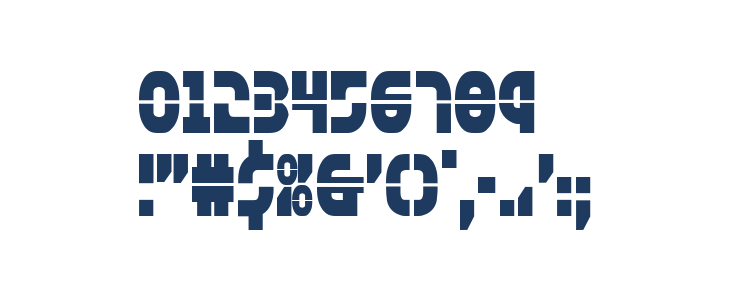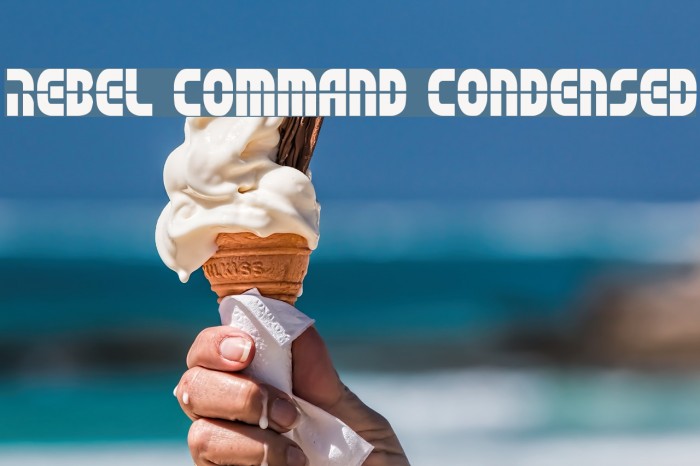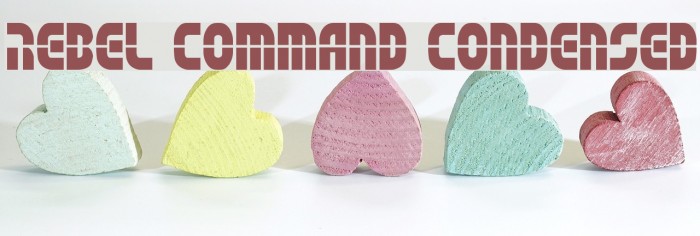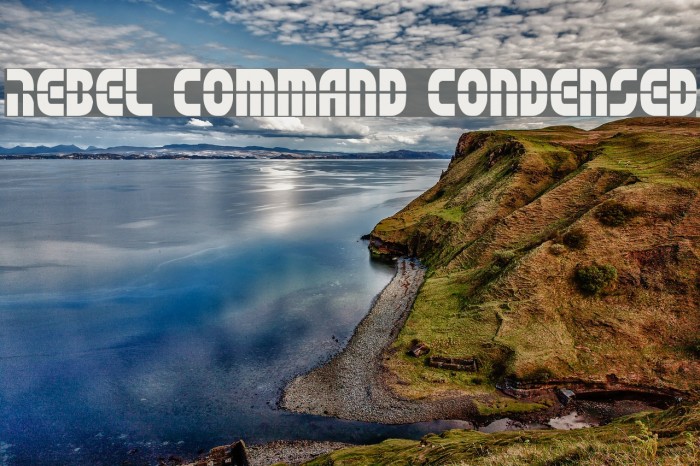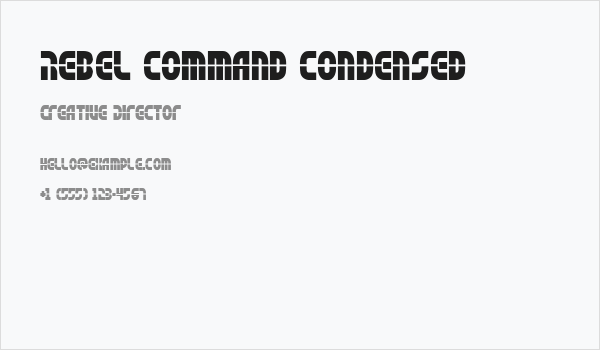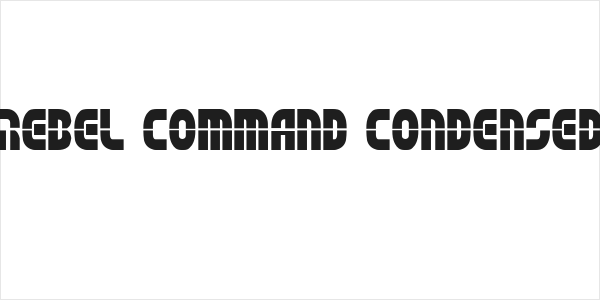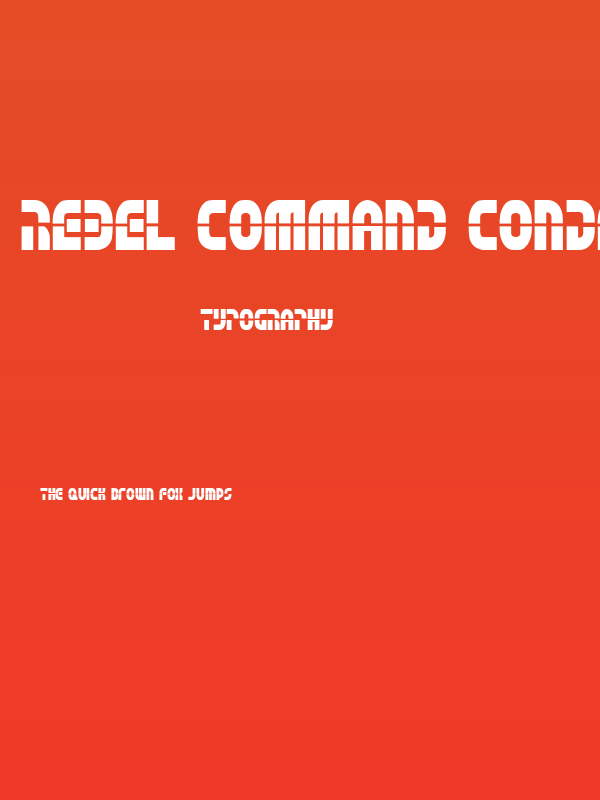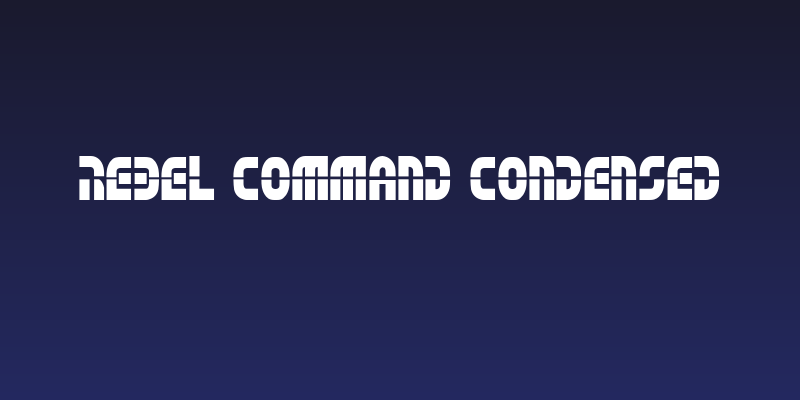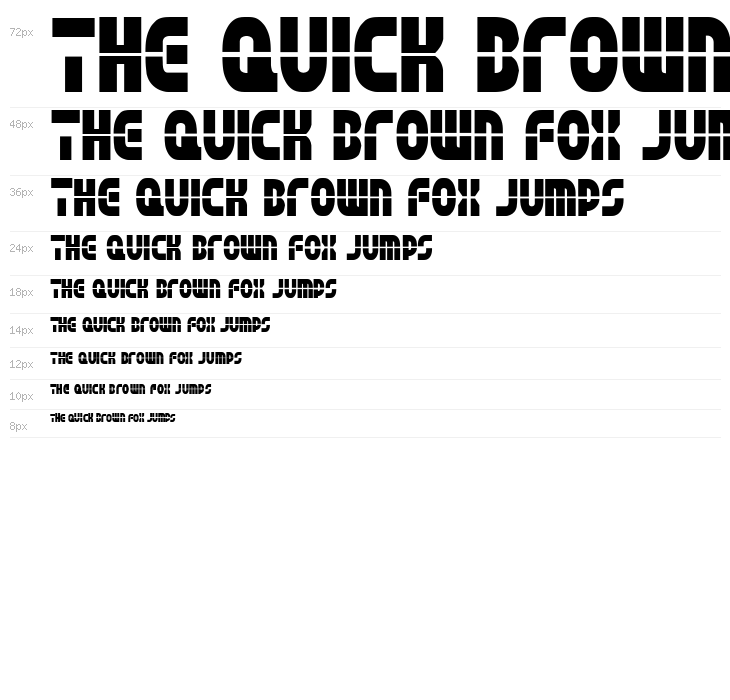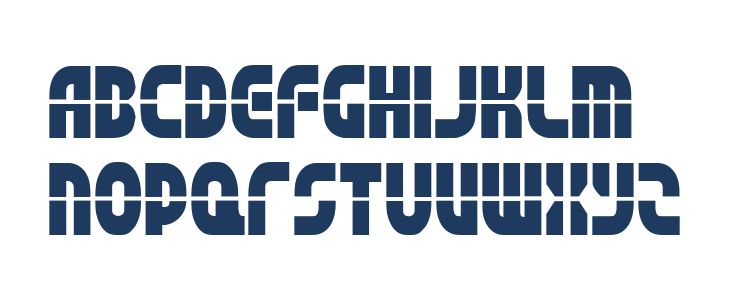
Rebel Command Condensed Font
Rebel Command Condensed Description
This font features a bold and futuristic design with a distinct geometric style. The characters are constructed with thick, block-like shapes that are split horizontally, creating a unique and eye-catching appearance. The uppercase and lowercase letters maintain a consistent structure, emphasizing a sense of uniformity and strength. Numbers and special characters follow the same design principles, ensuring a cohesive look across all text elements. The font's condensed width allows for efficient use of space, making it ideal for impactful headlines and modern design projects.
| Proposed Projects | Ideal for sci-fi themed designs, tech branding, posters, and modern advertising. |